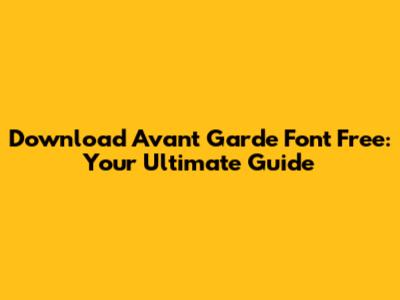
Download Avant Garde Font Free: Your Ultimate Guide
Hey everyone, are you looking to add a touch of retro chic to your designs? Then, the Avant Garde font is your go-to choice! This iconic typeface, with its clean lines and geometric shapes, has been a favorite among designers for decades. This article will guide you on how to download Avant Garde font free, explore its history, and discover the best ways to use it in your creative projects. Buckle up, guys, because we're diving deep into the world of typography!
The Allure of the Avant Garde Font
Avant Garde font isn't just a font; it's a statement. It embodies a sense of modernity and sophistication that can elevate any design. Created by Herb Lubalin in 1970, the original design was for the Avant Garde magazine. The font's distinctive letterforms, including its instantly recognizable "A" and "M," quickly became a symbol of the era's innovative spirit. Its unique character makes it stand out from the crowd and is perfect for various design projects. The font family includes several styles, from the classic Avant Garde Gothic to more experimental variations, providing you with a versatile toolkit for your creative endeavors. It's the kind of font that grabs attention. Whether you're working on a logo, a poster, or a website, the Avant Garde font adds a level of polish and personality that is hard to match. It is a fantastic option for headlines, titles, and short blocks of text. The geometric shapes and clean lines of the Avant Garde font make it incredibly readable, especially in larger sizes. Plus, its retro vibe is always a conversation starter. You can use it to create a vintage aesthetic or a modern, minimalist look. The options are endless, really. Because of its versatility, the Avant Garde font is a staple in many designers' collections. And the best part? You can download Avant Garde font free and start experimenting right away!
As you begin to explore the font, you'll discover different variations and styles that further enhance its appeal. Each style offers a unique personality, allowing you to tailor your design to your specific needs. From the bold and striking Avant Garde Gothic Bold to the more delicate and refined Avant Garde Gothic Book, the possibilities are vast. This versatility makes the font suitable for projects across various industries. Imagine using it for a tech startup's logo to convey innovation or a fashion brand's advertising campaign to exude elegance. Because it's so adaptable, you can make it work for you. Using the Avant Garde font in your designs can transform how your audience perceives your message. It adds a layer of visual interest that keeps people engaged. Consider the impact of using this font on a website. The font can help create a memorable and impactful brand identity. With its unique character, the Avant Garde font ensures that your designs leave a lasting impression. If you're a designer looking for a font that speaks volumes, the Avant Garde is your go-to. It's not just a typeface; it's a design tool that inspires creativity and sets your work apart. When you download Avant Garde font free, you're not just getting a font; you're gaining access to a piece of design history that still holds power today!